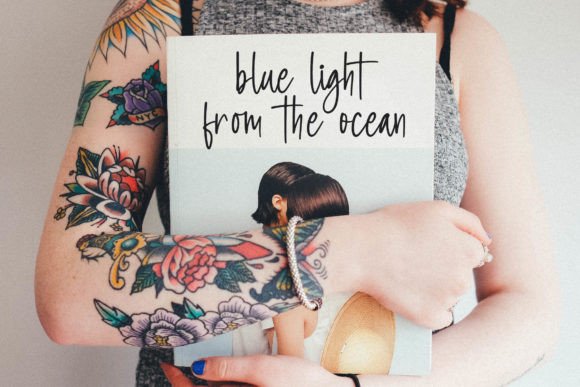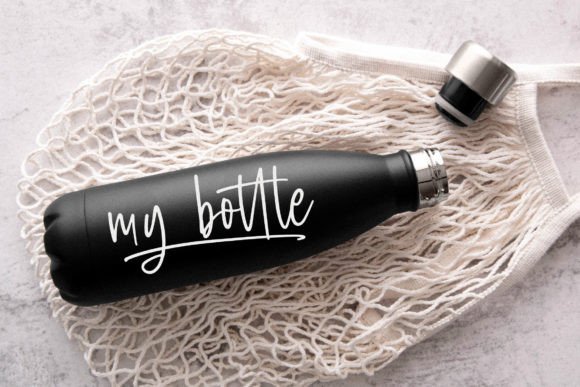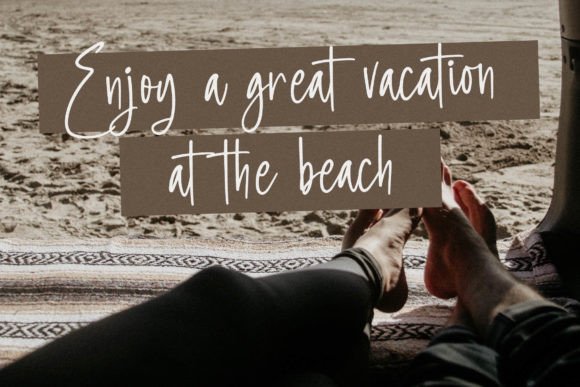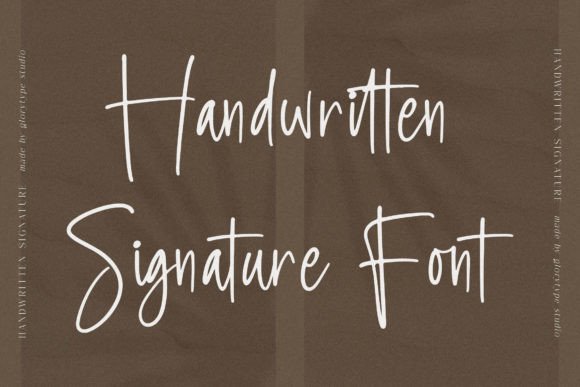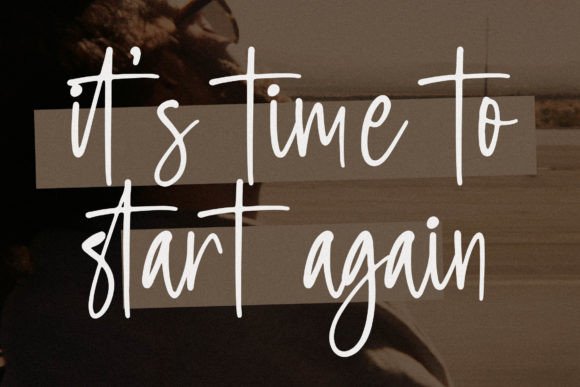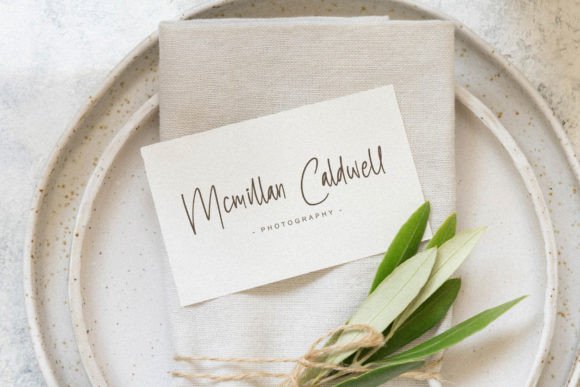
Introduction to Heathilery Font
Heathilery is a cool and stylish handwritten script font that embodies modernity and elegance.
Its smooth, flowing lines and balanced letterforms create a sense of sophistication and charm Perfect for fashion, beauty, and lifestyle projects, Heathilery adds a touch of refinement and uniqueness.